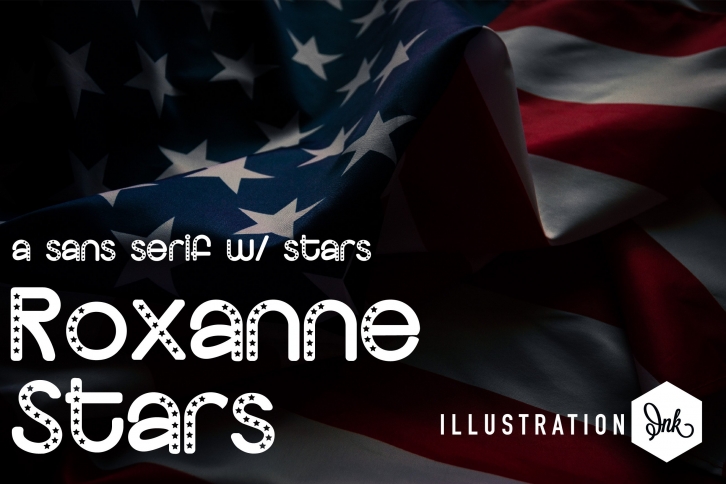
ZP Roxanne Stars is a trendy and unique font with an authentic style. It was designed by Illustration Ink and it's a great choice for creative people who need such a font. It was released on June 23, 2022 and the file size is 15.40 MB. ZP Roxanne Stars will add an organic vibe to any design idea!